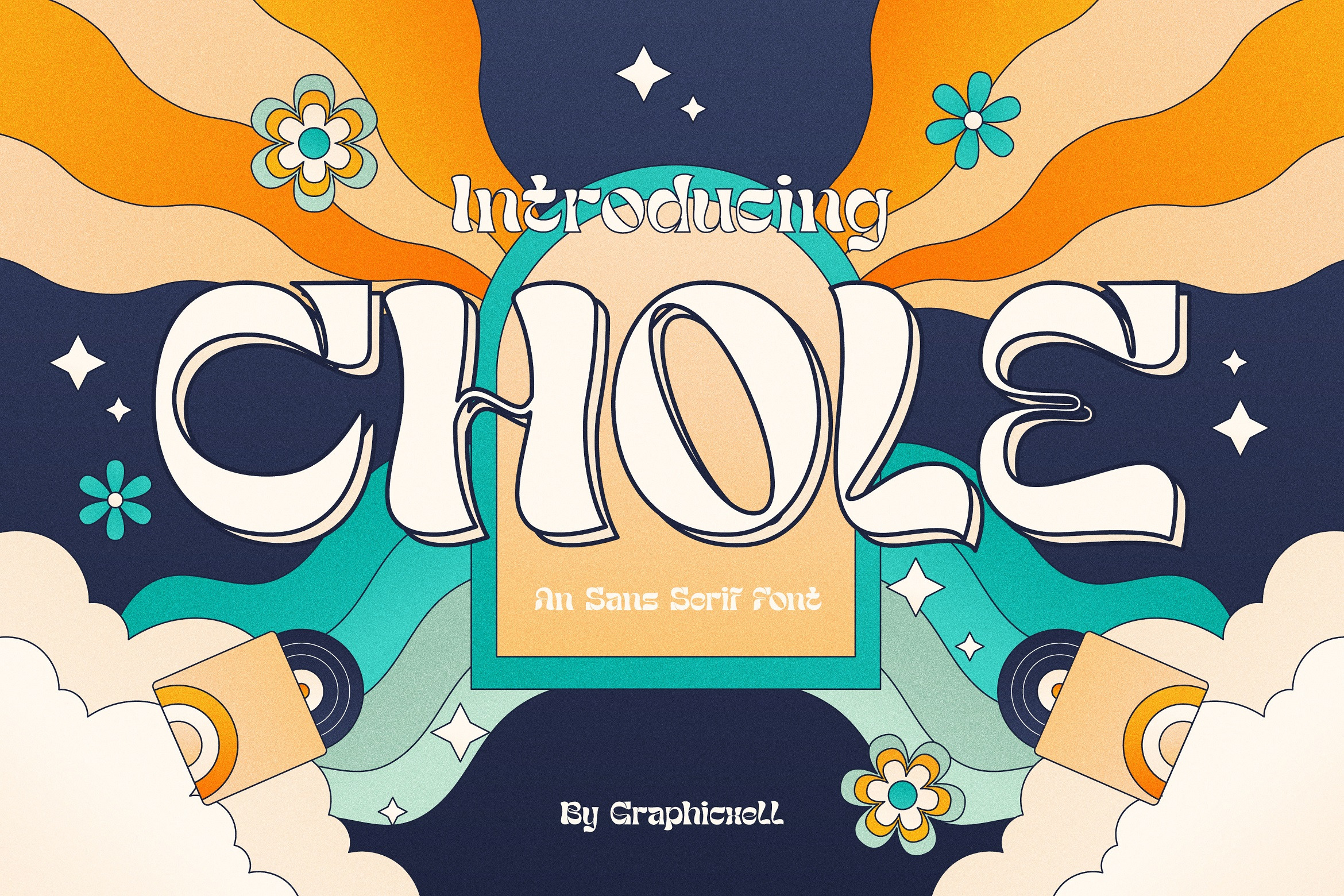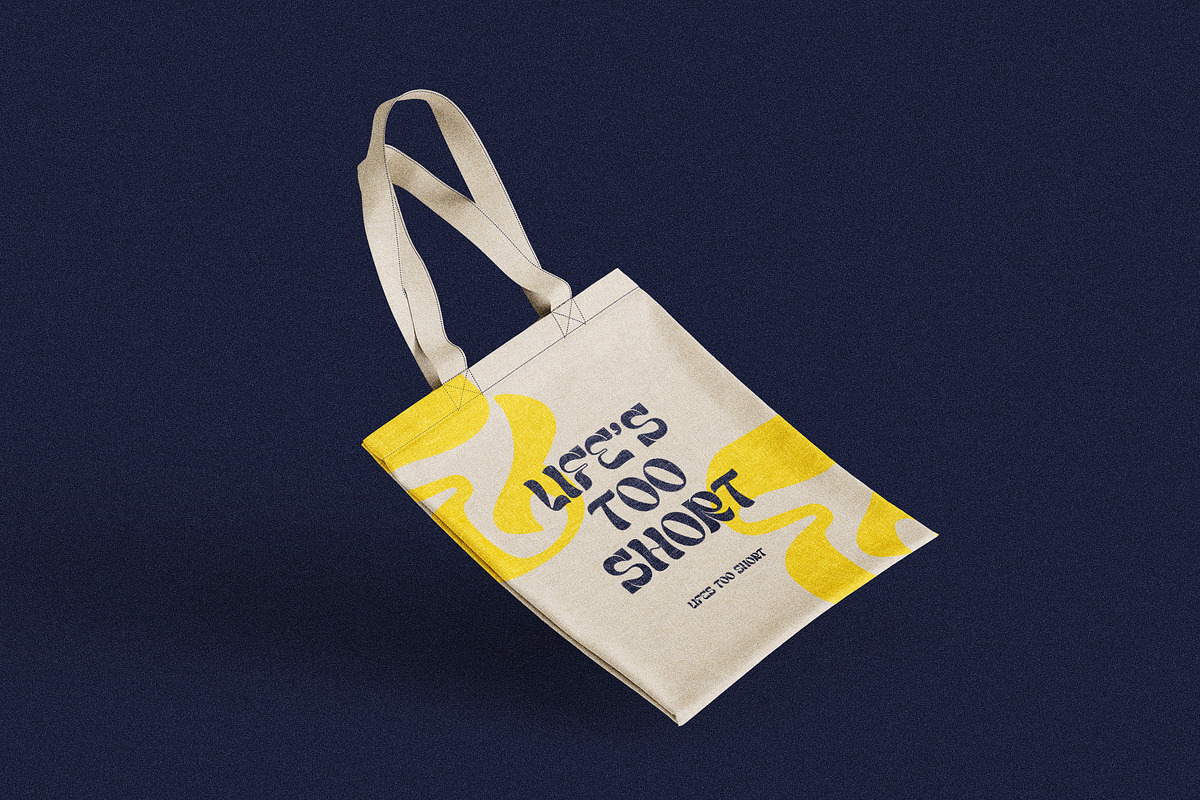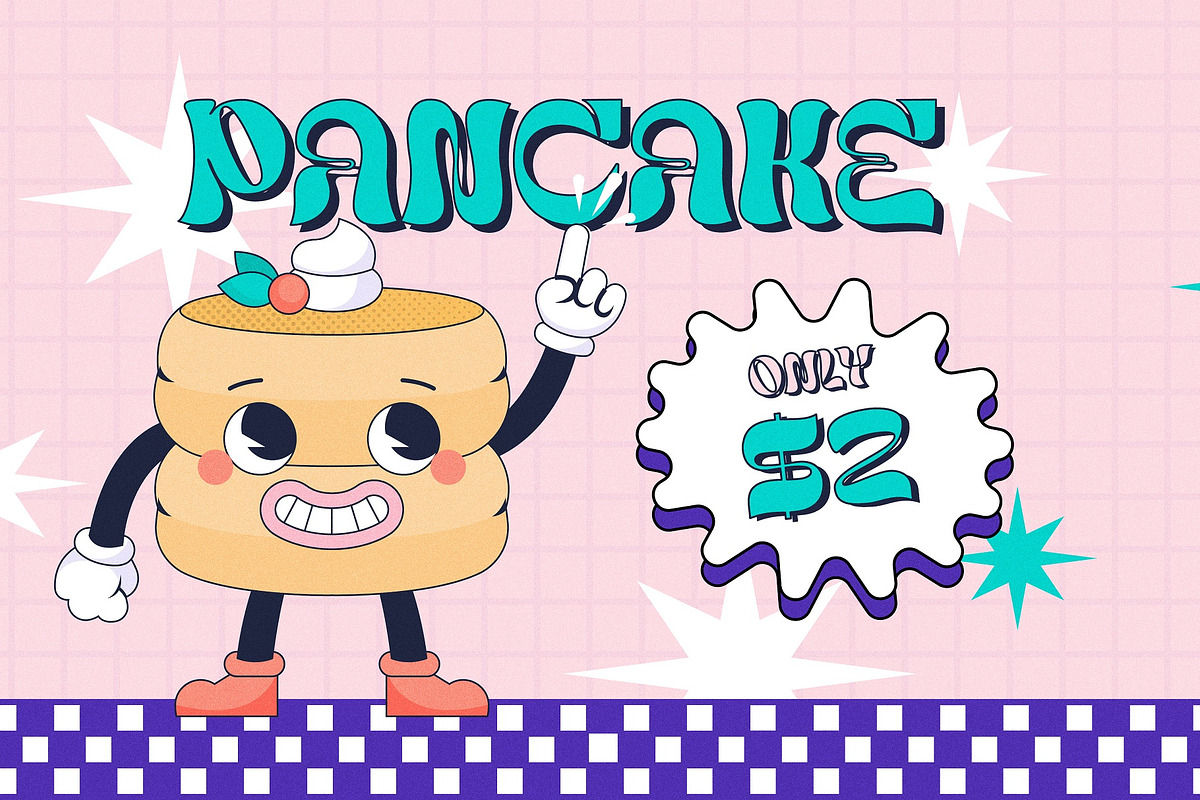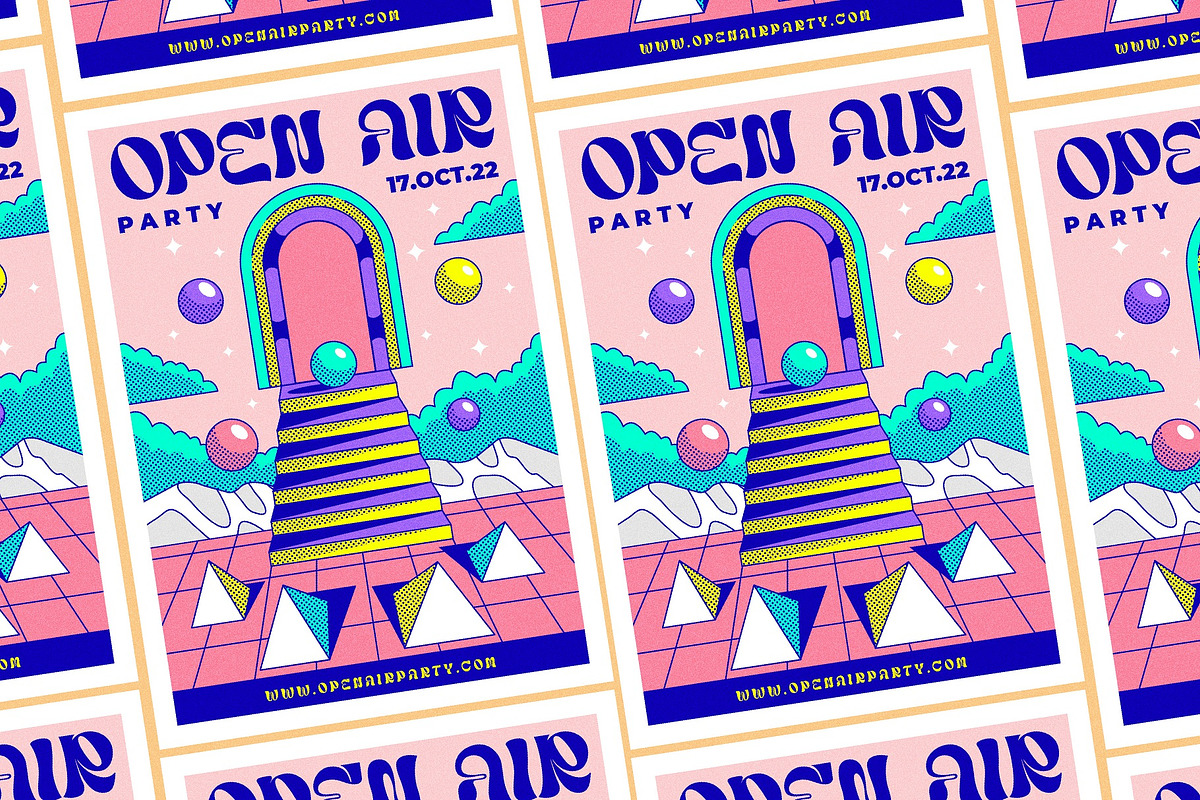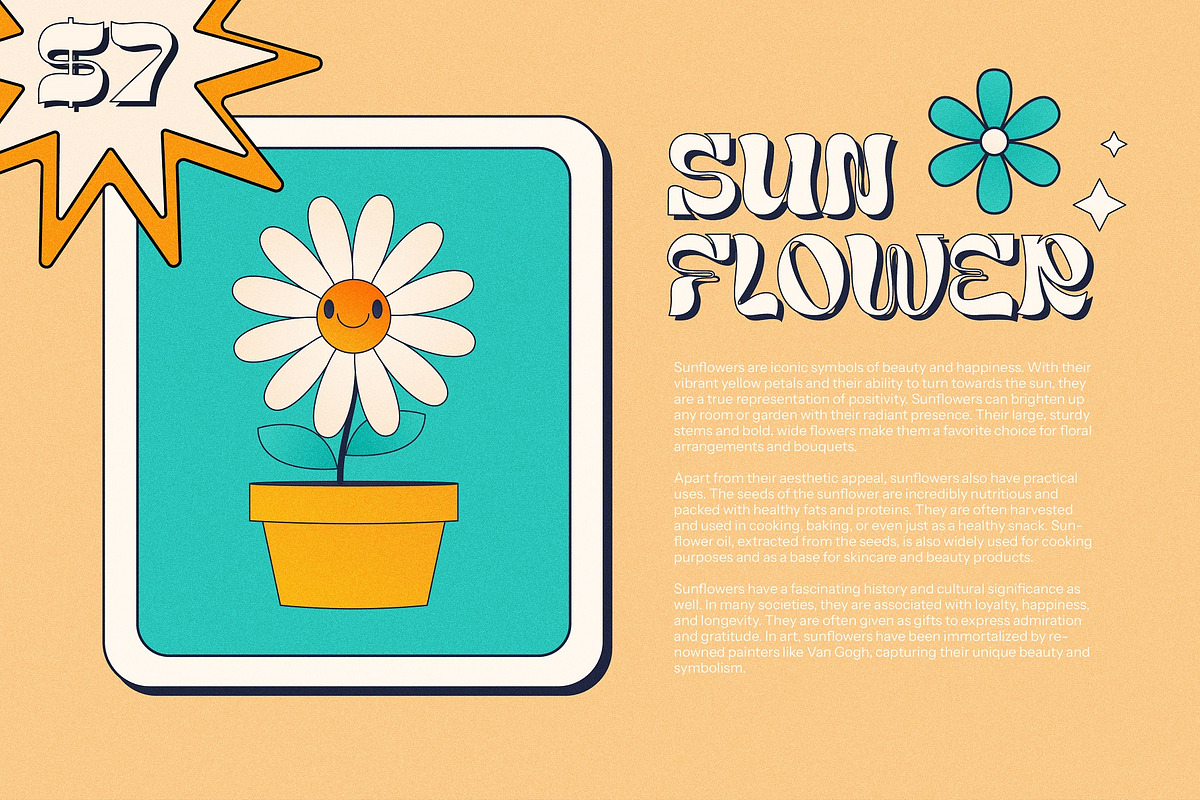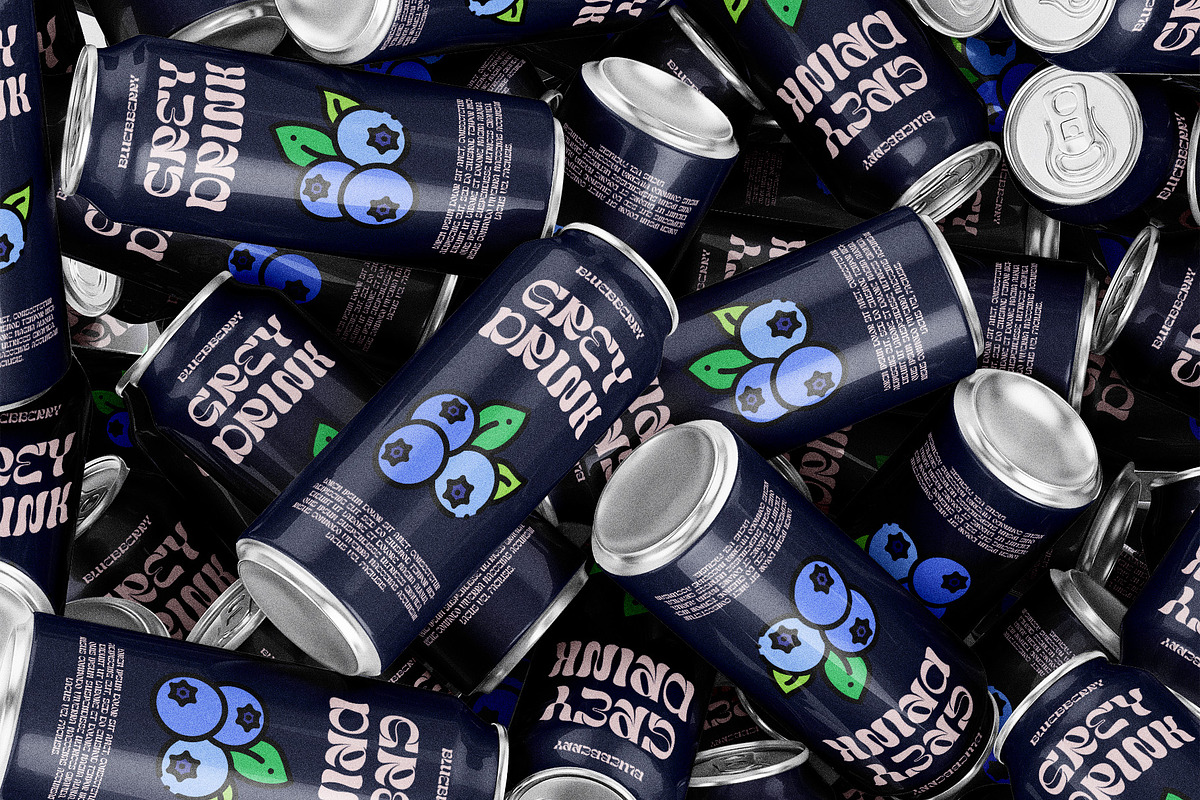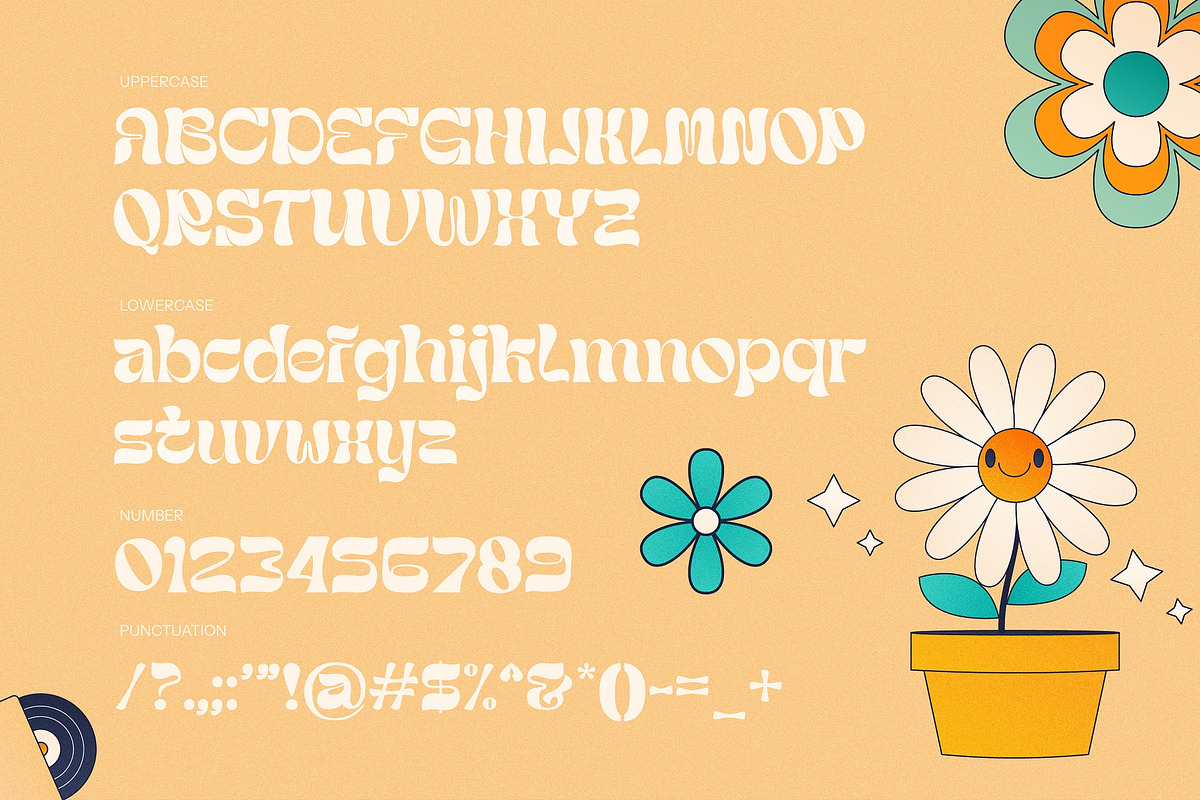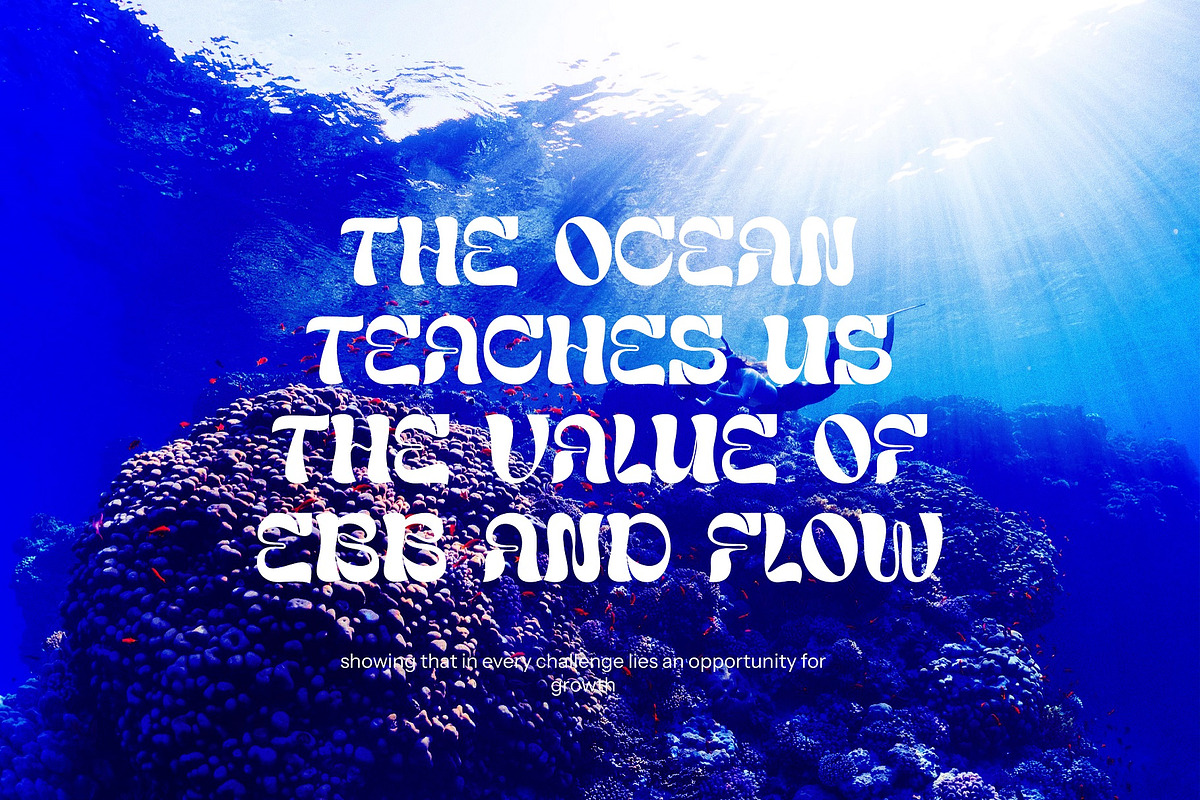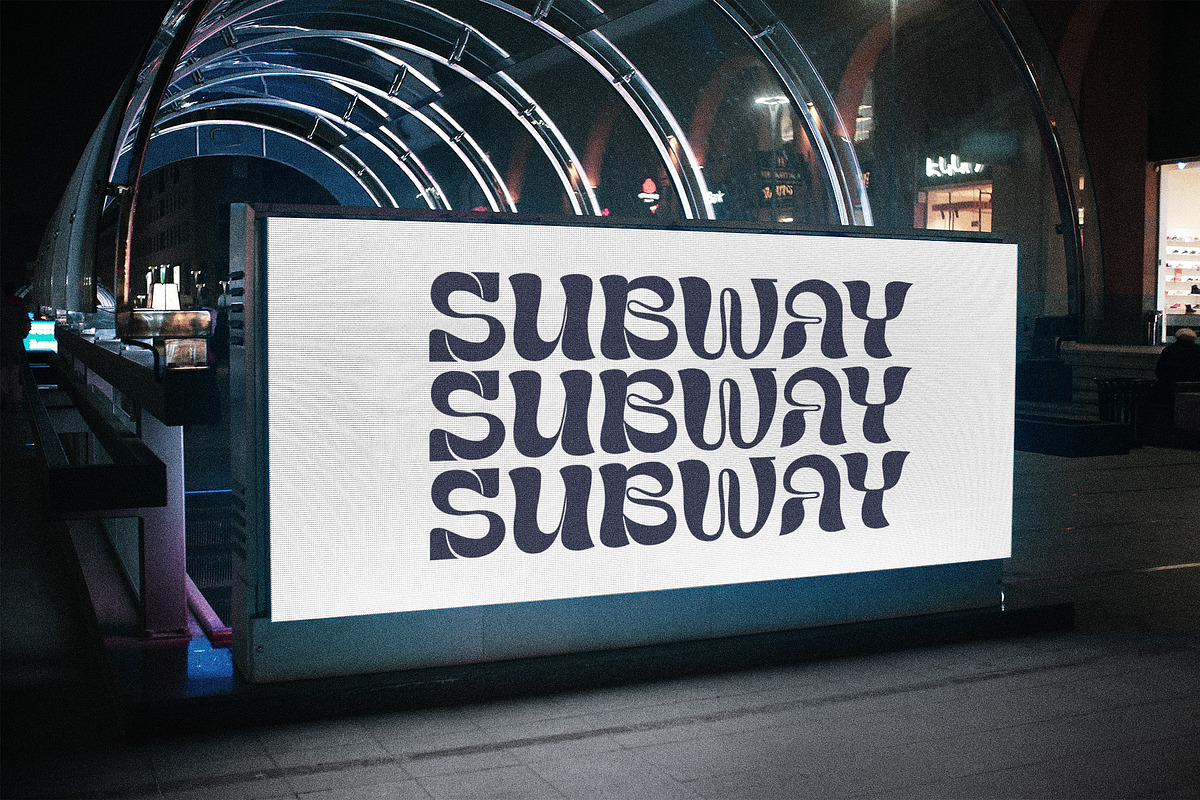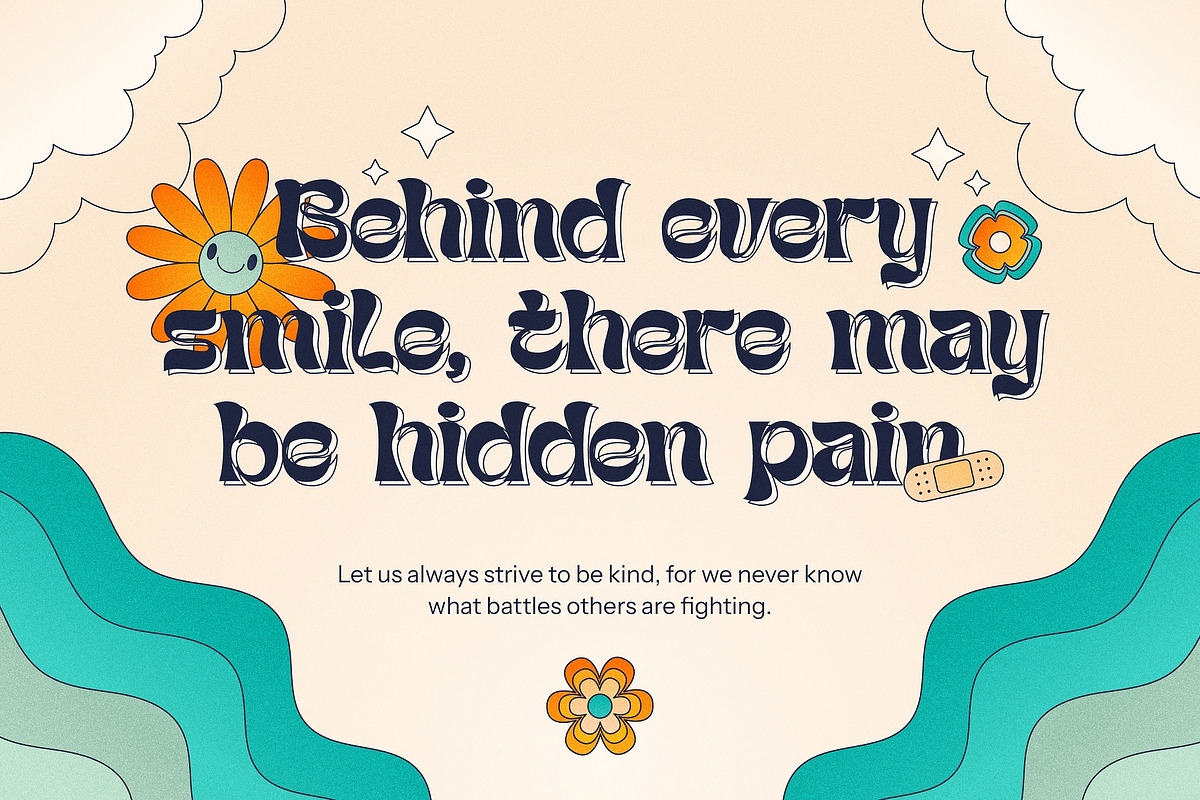
Chole Retro Vintage Serif Font
Chole Retro Vintage Serif Font is a type of font that comes with a balanced and symmetrical rhythm. Inspired by various sources, this typeface combines retro and vintage style. The lovely style makes this serif font suitable for anyone who works on graphic design projects. Thanks to its unique shape with a precise proportion. This typeface also comes with subtle contrasts and contours, giving it an impressive look. The chic look doesn’t compromise on its minimalism and elegance. So, it will work on any project related to graphic designs including games, post templates, posters, layout designs, magazines, logos, ad branding, videos, brochures, and many more. Its versatility makes this font very valuable. So, there’s no harm in trying Chole Retro Vintage Serif Font. If you are looking for a cool typeface, this font can be the answer. Designers from beginners to professionals must get this captivating font.